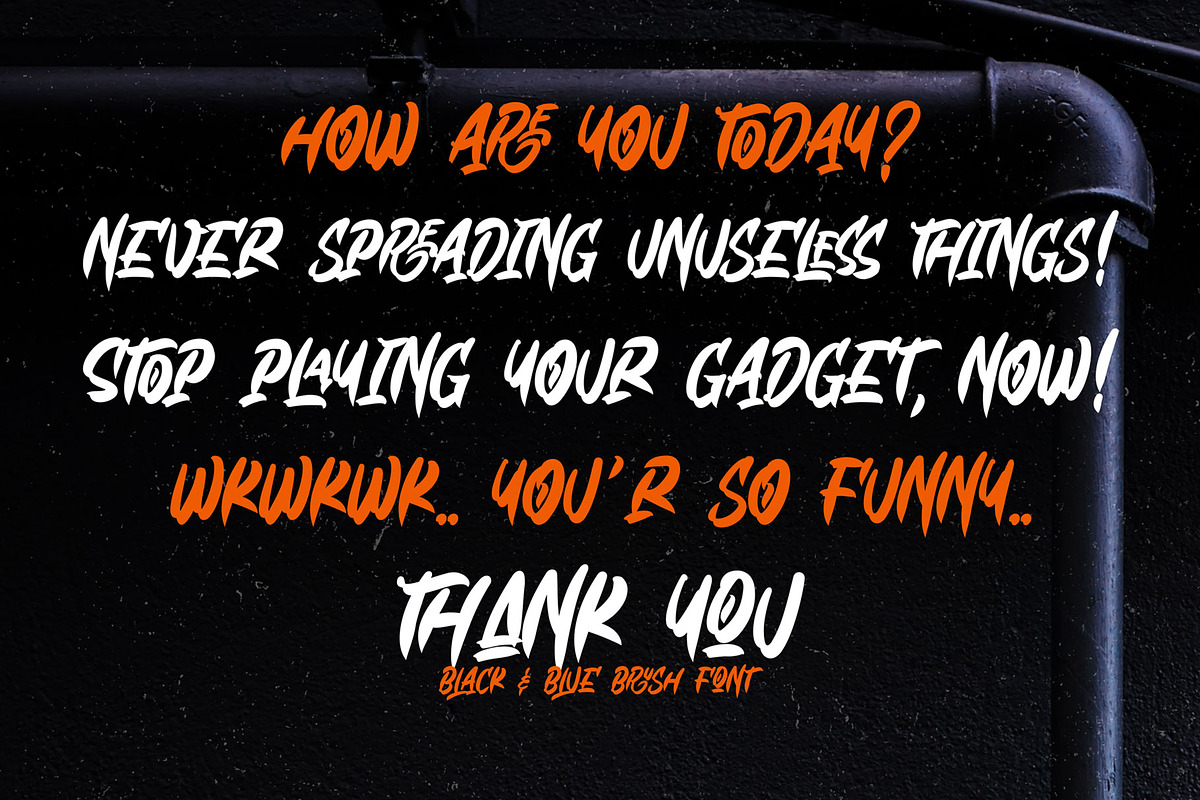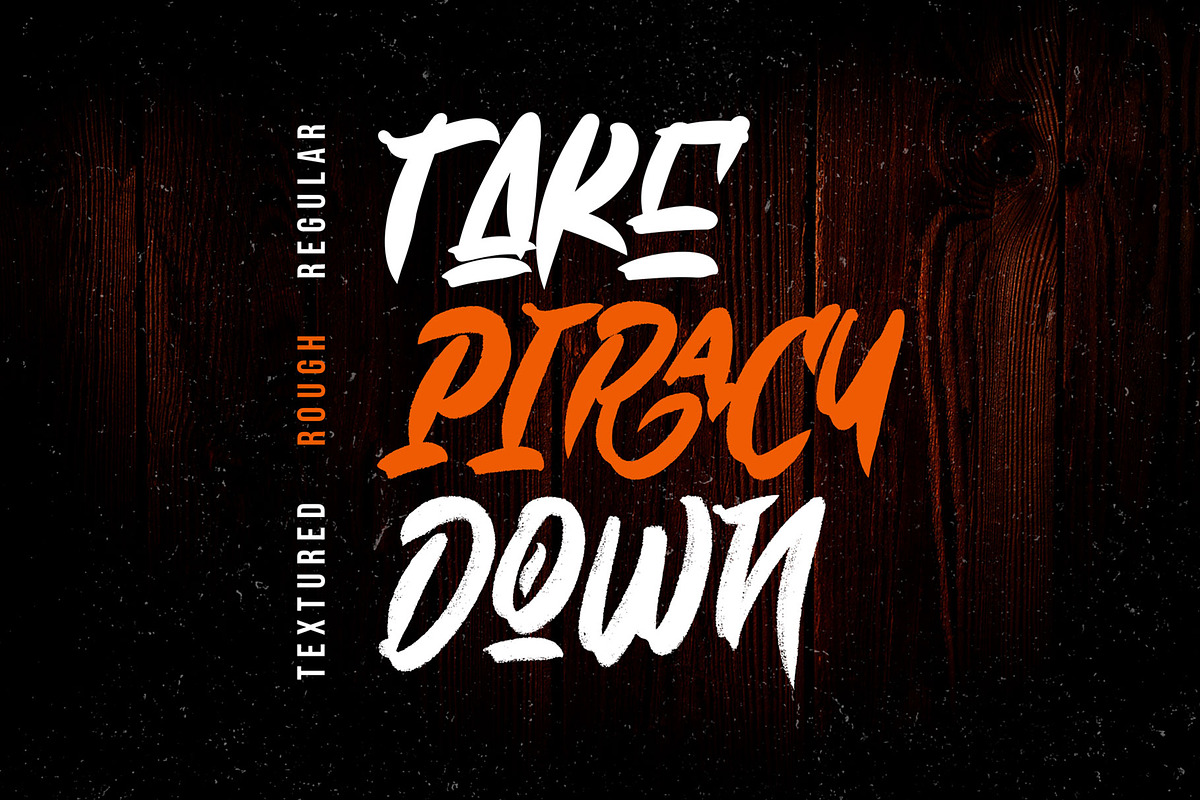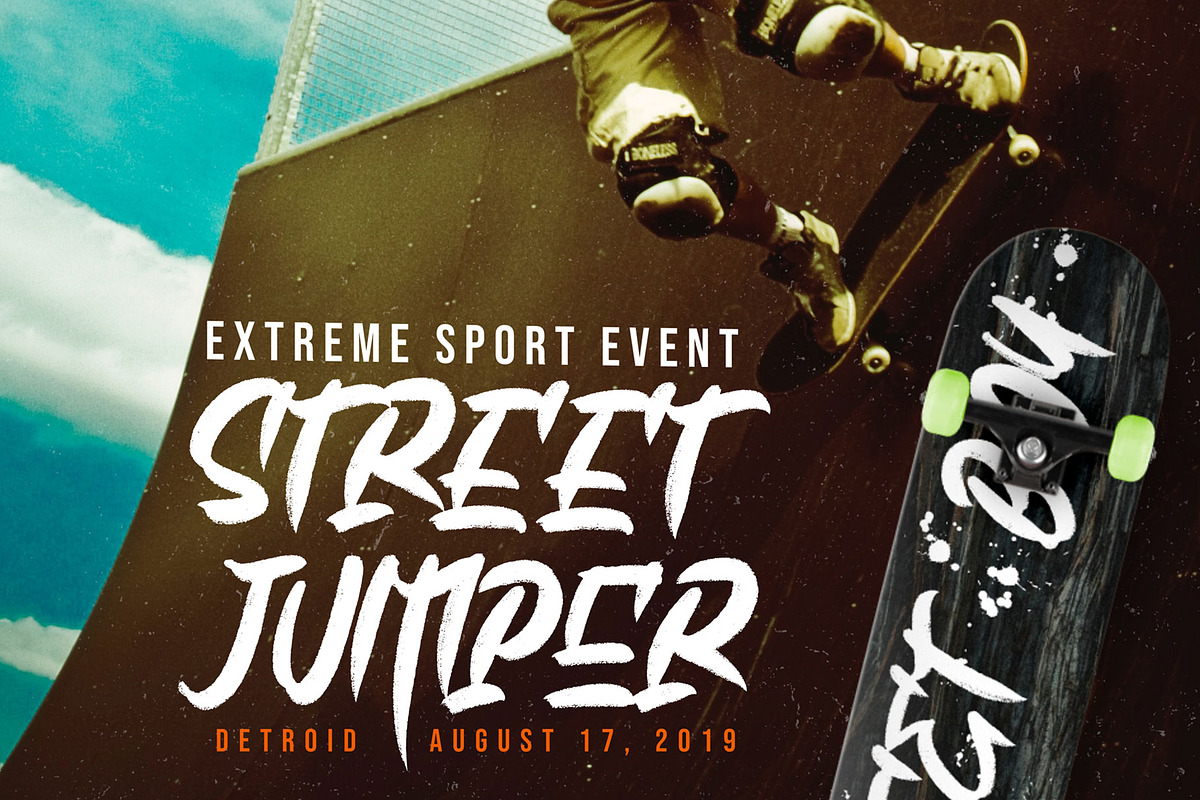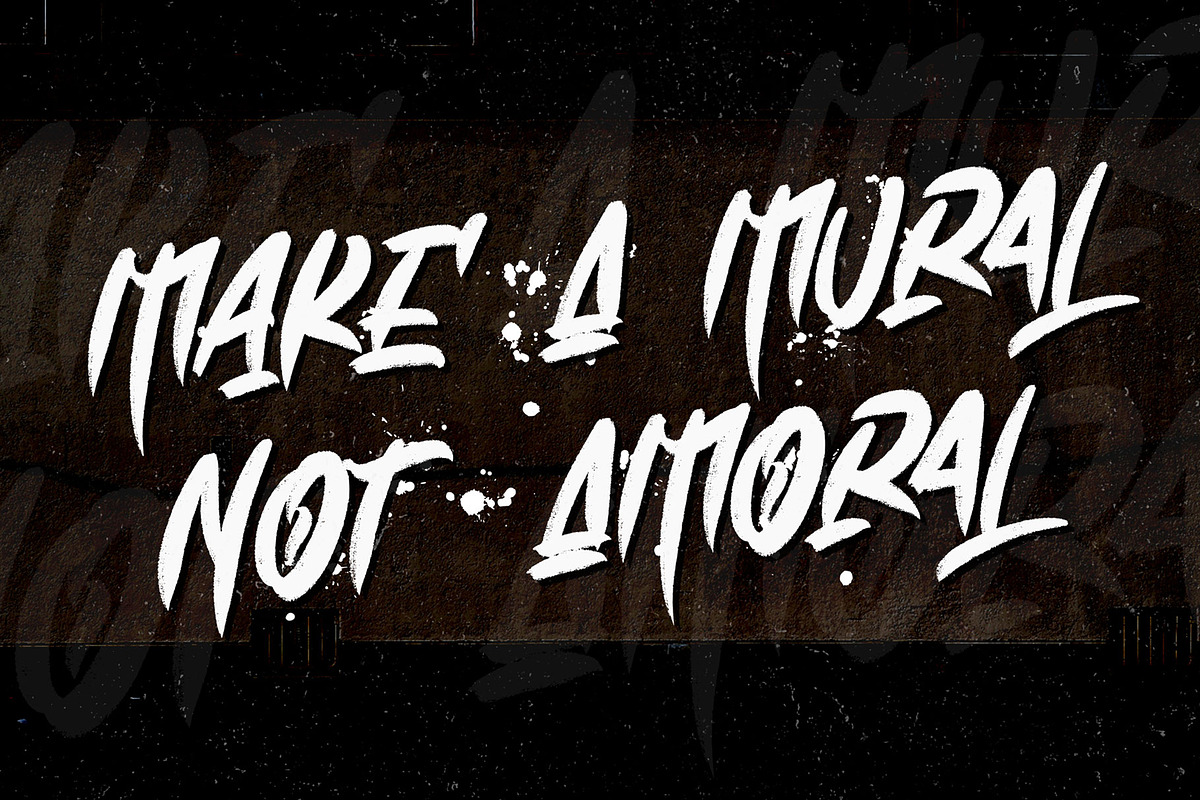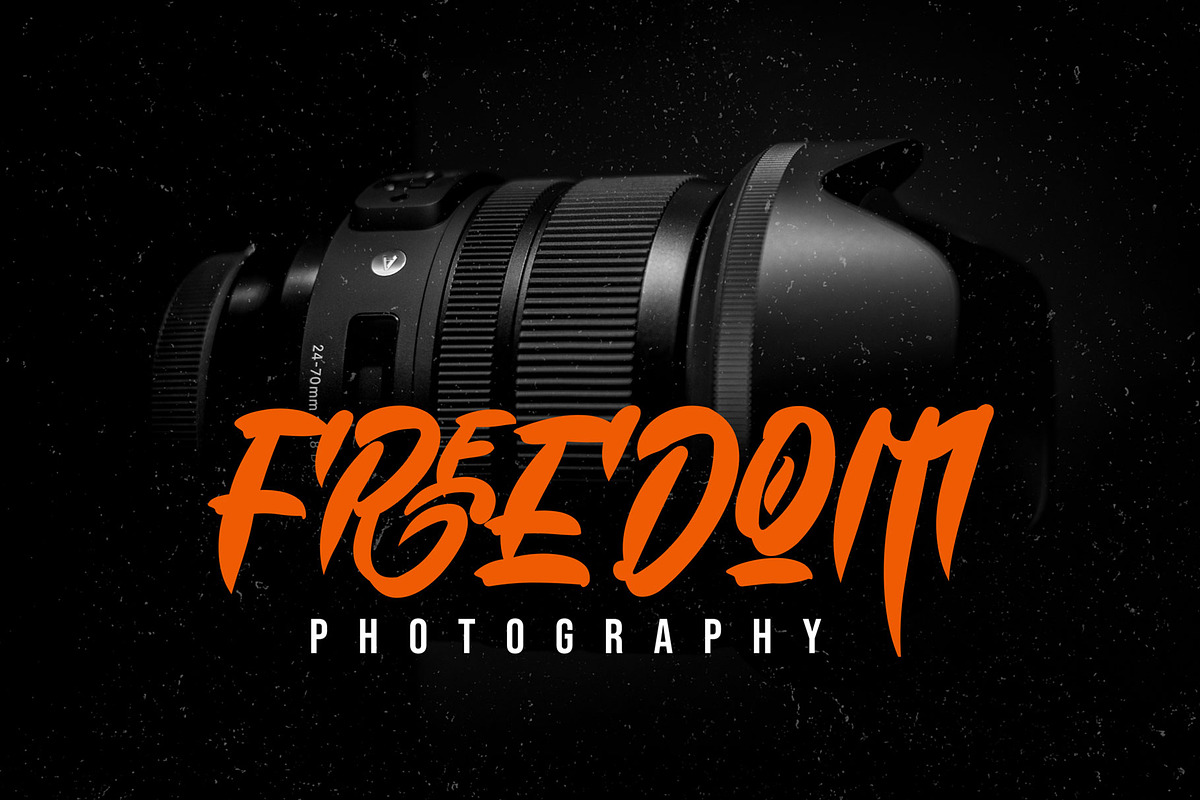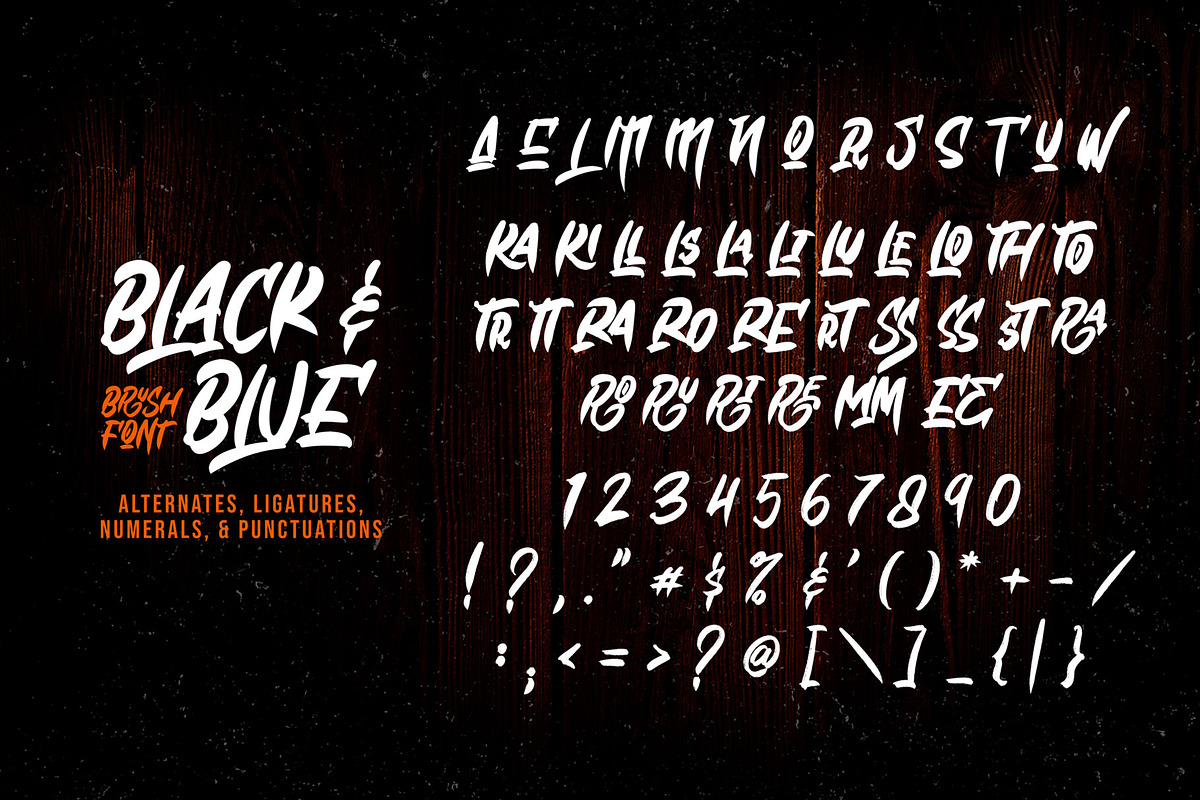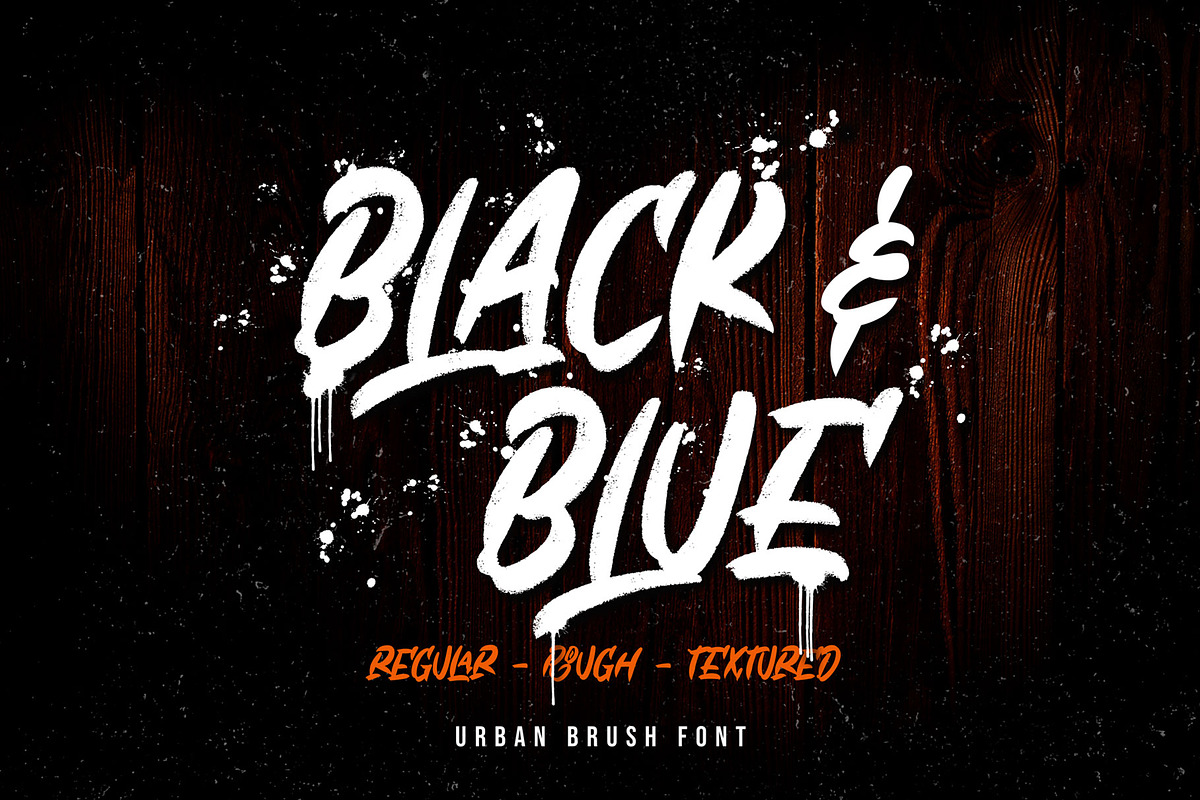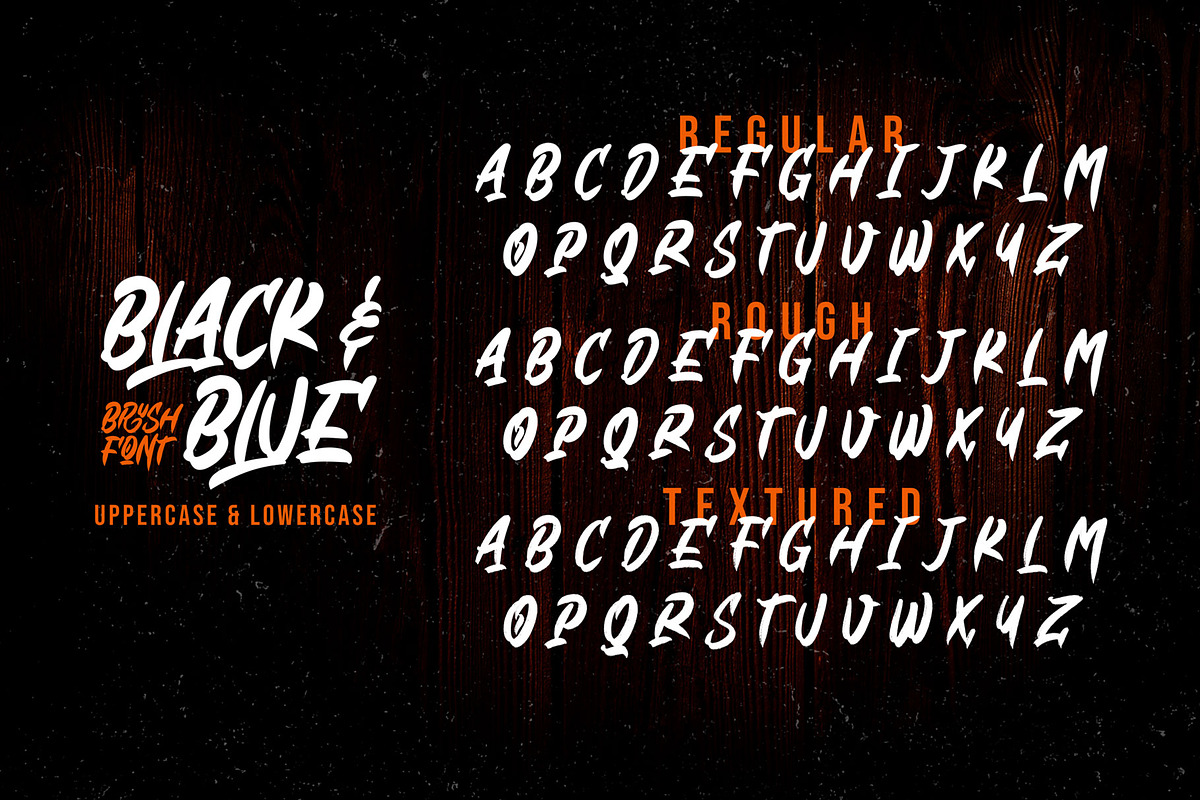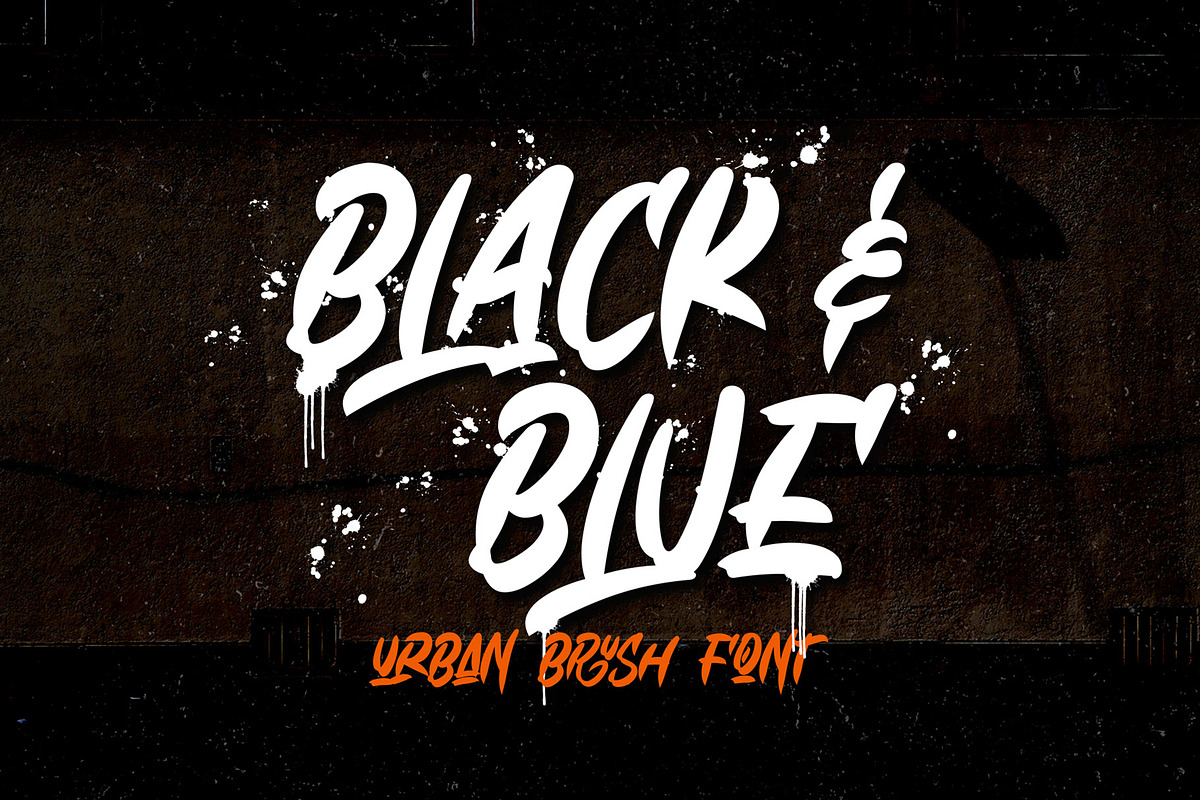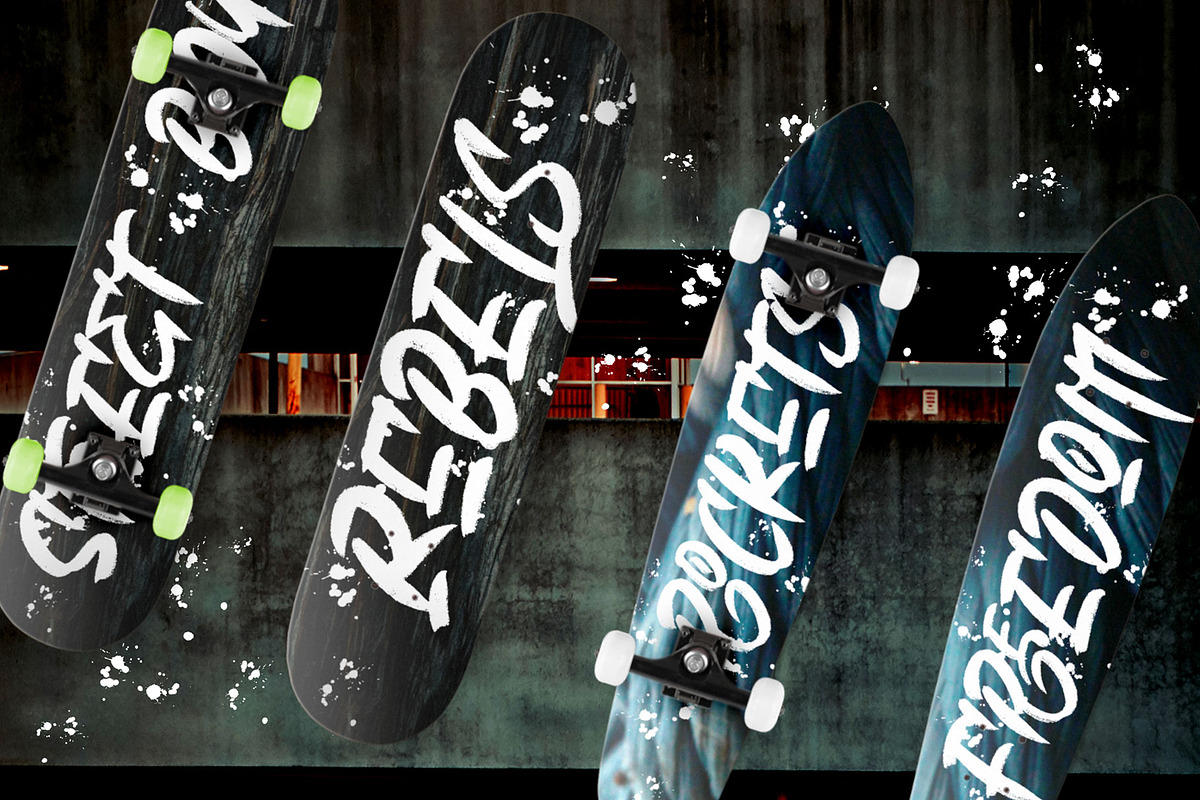
Black & Blue
Black & Blue! A brush font with 3 styles, regular (clean), rough, and textured. Black & Blue font is ideal for logotype, branding, advertisement, apparel, T-shirt, Hoodie, quotes, product packaging, or anything which needs a typographic turbo-boost.
- All Uppercase characters
- Supports international languages
- Numerals & punctuations, stylistic alternates, and ligatures